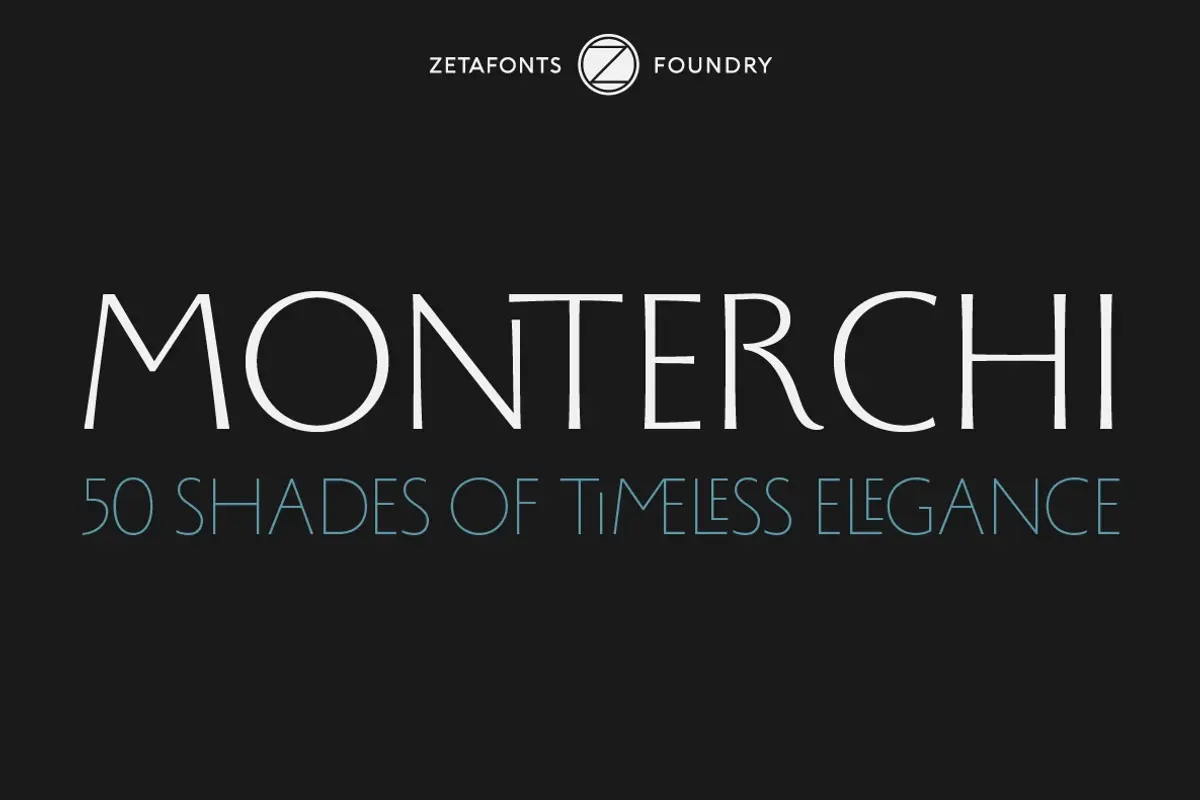
Monterchi - 50 Fonts Free Download is a massive, versatile font family offering a wide variety of styles, from elegant serifs to modern sans-serifs and scripts. With 50 different fonts, this collection provides tremendous flexibility for any design project, whether you’re working on branding, logos, web design, posters, or print materials.
The Monterchi Font Family includes a diverse range of weights and styles, giving you everything you need for both professional and creative applications. Whether you're designing for a corporate project, a luxury brand, or a creative campaign, this family ensures you have the perfect font for every occasion.